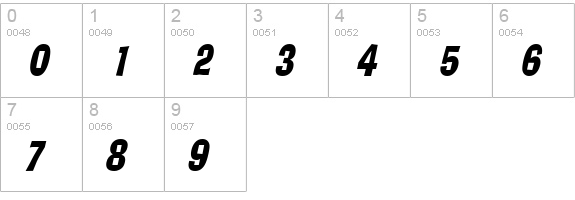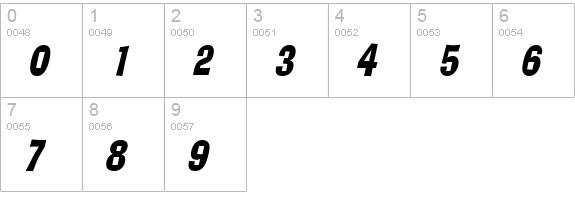
Alor Condensed Italic is a distinctive, condensed-width, italic variant in the Alor typeface family \xE2\x80\x94 well suited to design and typography projects.
Introducing Alor Condensed Italic font, a modern and sleek typeface designed to bring a touch of elegance to your projects. This font features a unique italic style that adds a dynamic flair to any design. With its clean lines and contemporary look, Alor Condensed Italic is perfect for branding, editorial design, packaging, and more. The best part? Alor Condensed Italic font is available for free download at FontsMarket.com! Whether you're a designer, student, or hobbyist, you can easily access this stylish font to elevate your creations. Don't miss out on the opportunity to enhance your projects with the sophisticated charm of Alor Condensed Italic font. Download it today and start creating stunning designs with ease.